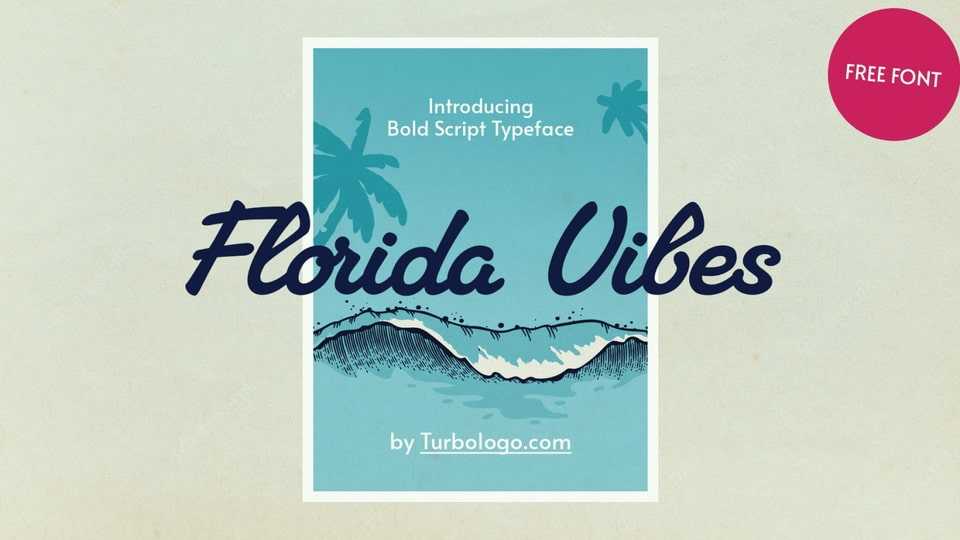
Download Florida Vibes font, a handwritten typeface with the Sunshine State’s charm. With its casual, flowing strokes and playful, bouncy letters, this font is perfect for creating a relaxed, vacation-inspired aesthetic.